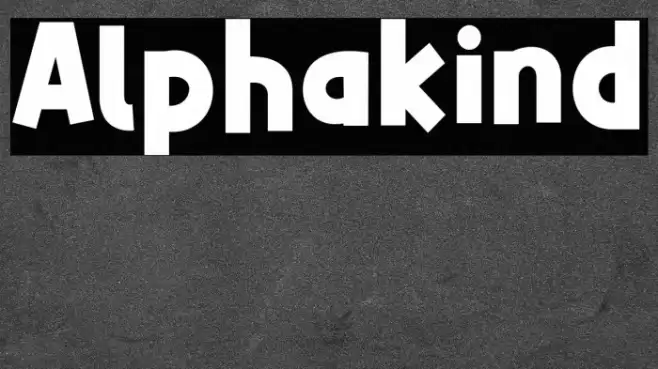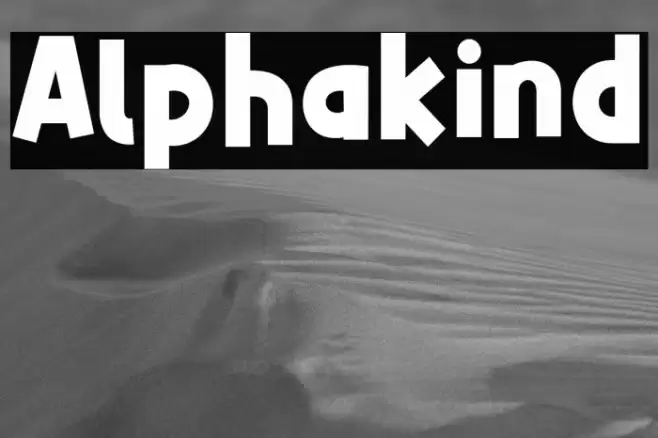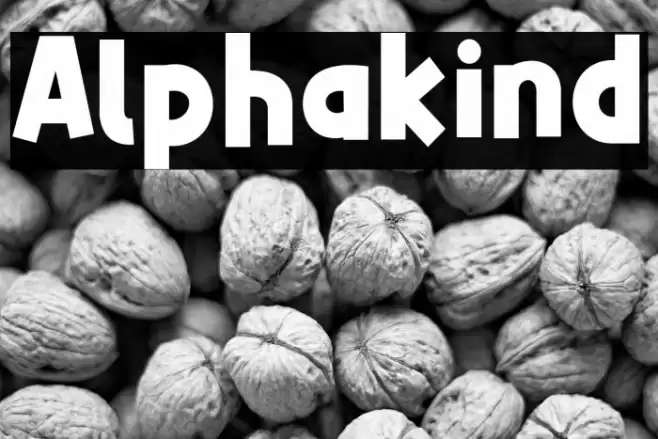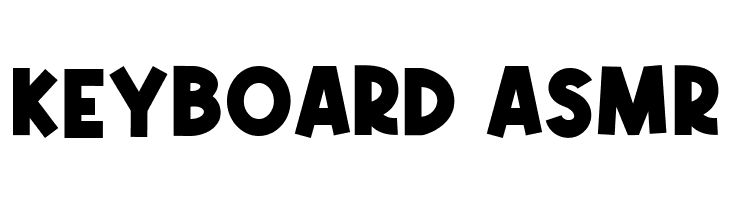
Alphakind Font
Alphakind Description
This font features bold, geometric letterforms with a playful and modern aesthetic. The uppercase letters are strong and impactful, while the lowercase letters maintain a consistent weight and style, providing a harmonious balance. The numerals are clear and easily readable, making them suitable for various applications. Special characters are designed with the same boldness, ensuring uniformity across all glyphs. The overall design is clean and versatile, making it ideal for attention-grabbing headlines and creative projects.
A bold, geometric font with a playful and modern style from Cartoon fonts.
- Proposed Projects: Ideal for branding, posters, headlines, and any project requiring a bold, modern typeface.